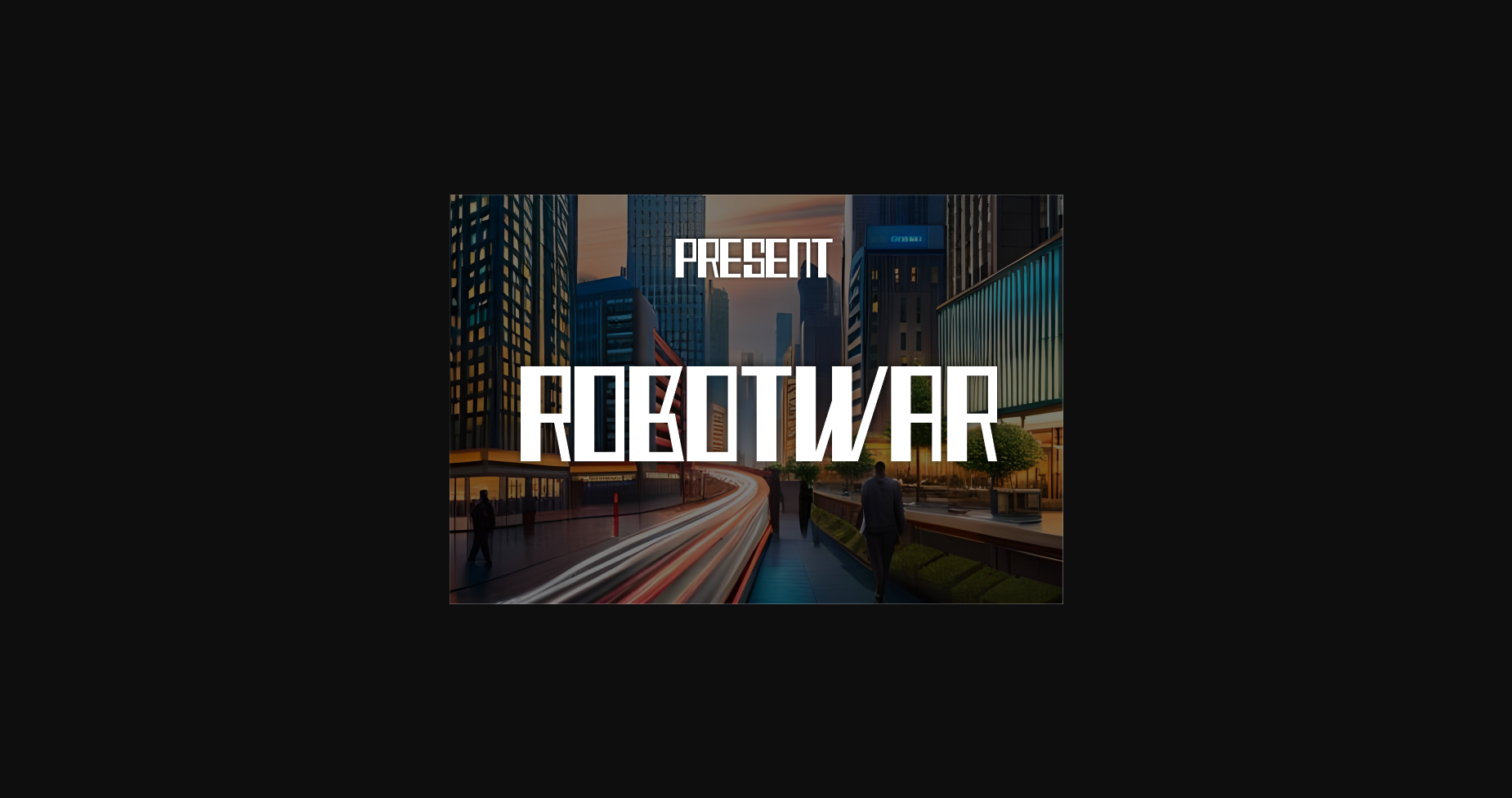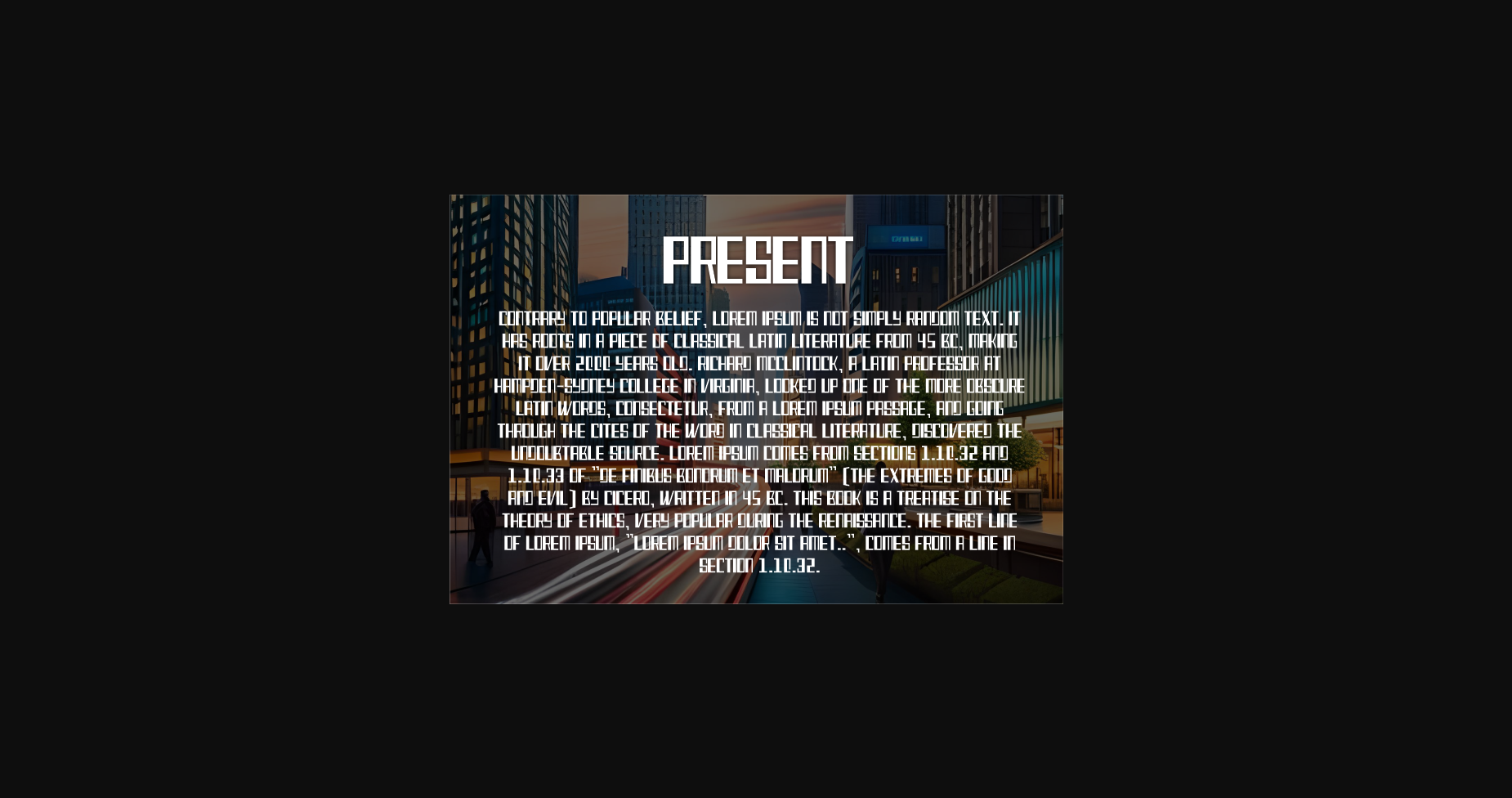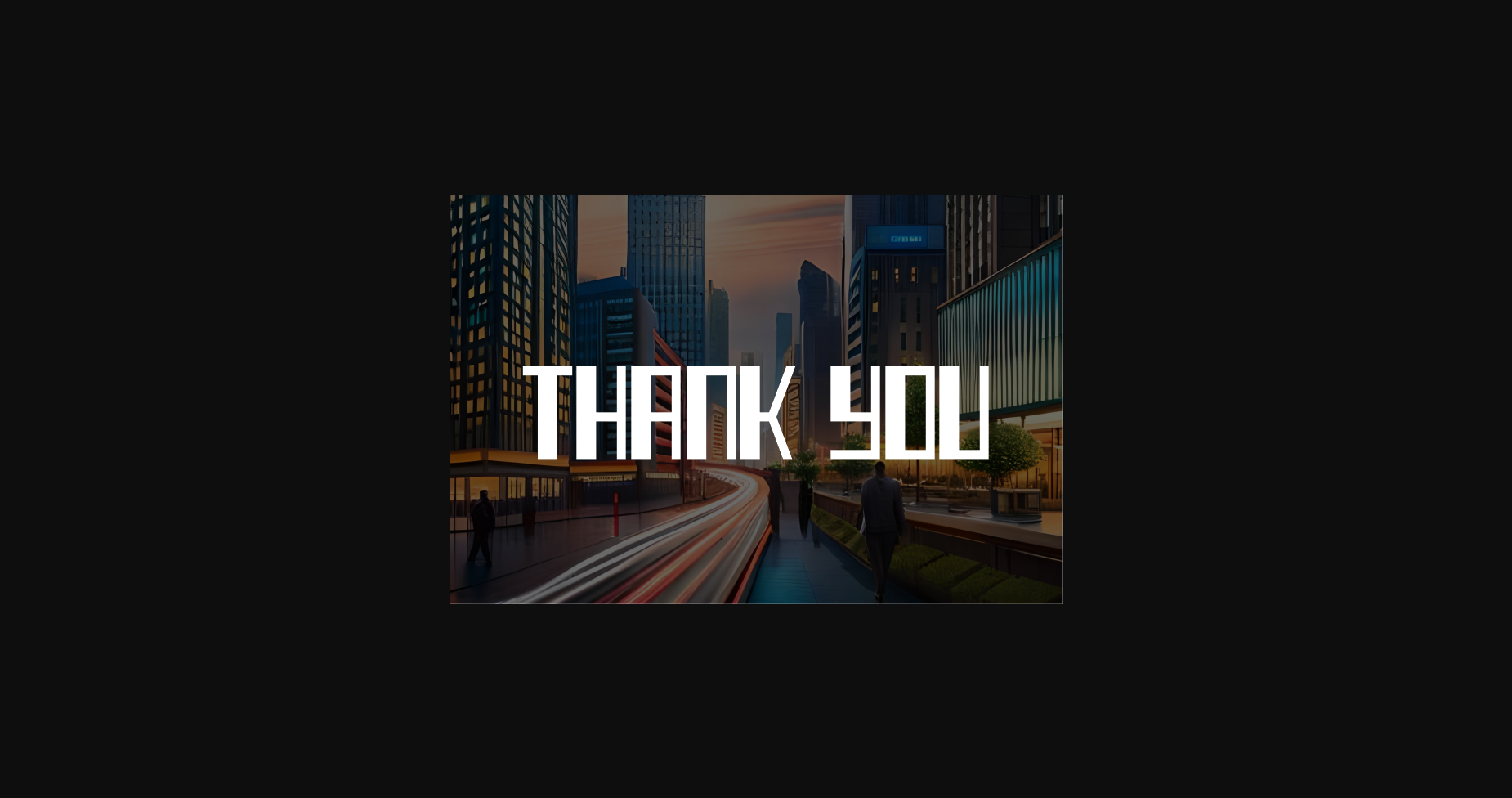
About Robotwar Font
Introducing \”Robotwar Font Sans Serif,\” a sleek and modern typeface inspired by the world of robotic warfare. With its clean lines and futuristic appeal, this font exudes a sense of technological sophistication. Perfect for high-tech branding, sci-fi designs, and cutting-edge digital projects. Embrace the power of Robotwar Font Sans Serif and make your message stand out with robotic precision.